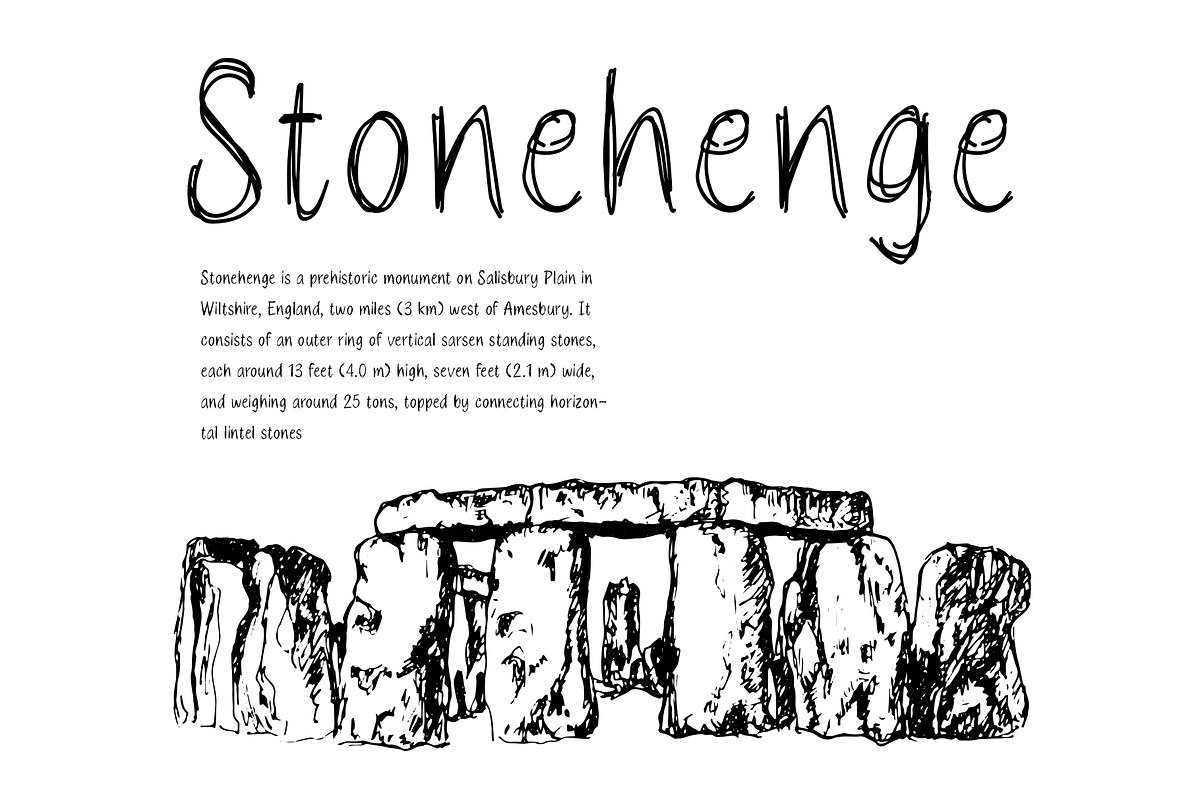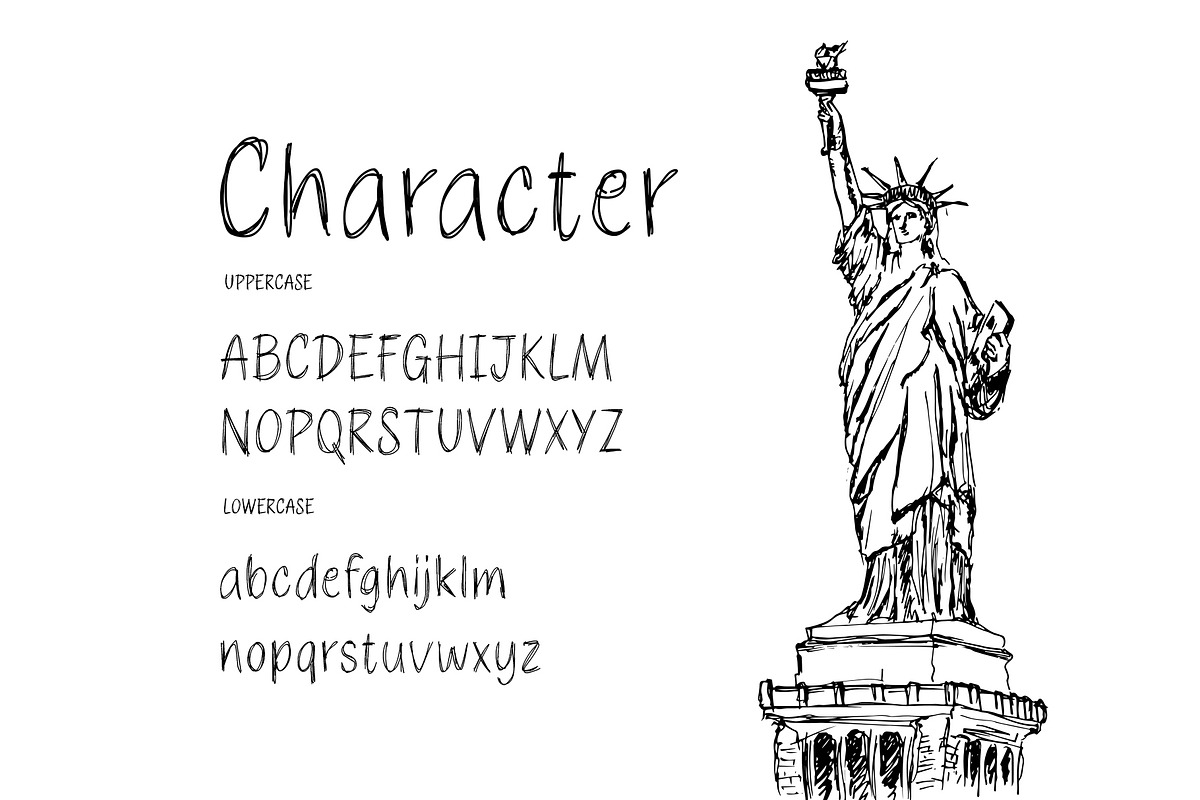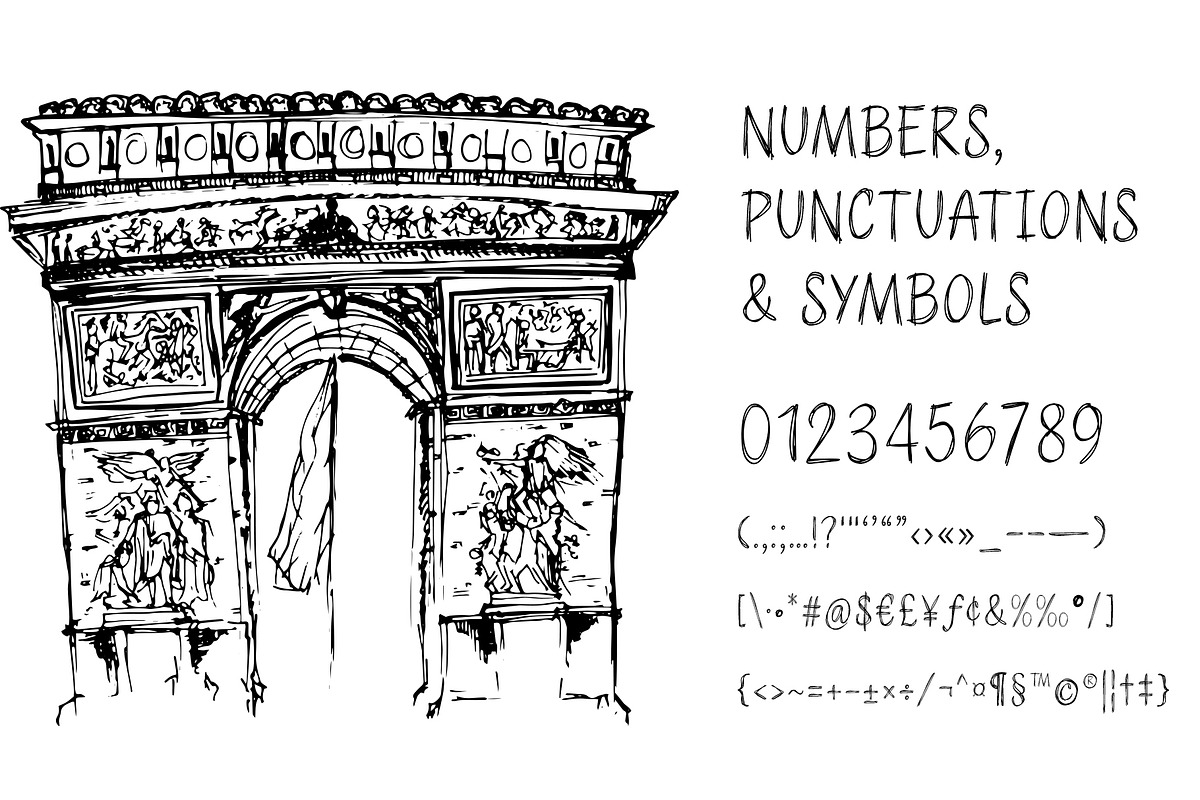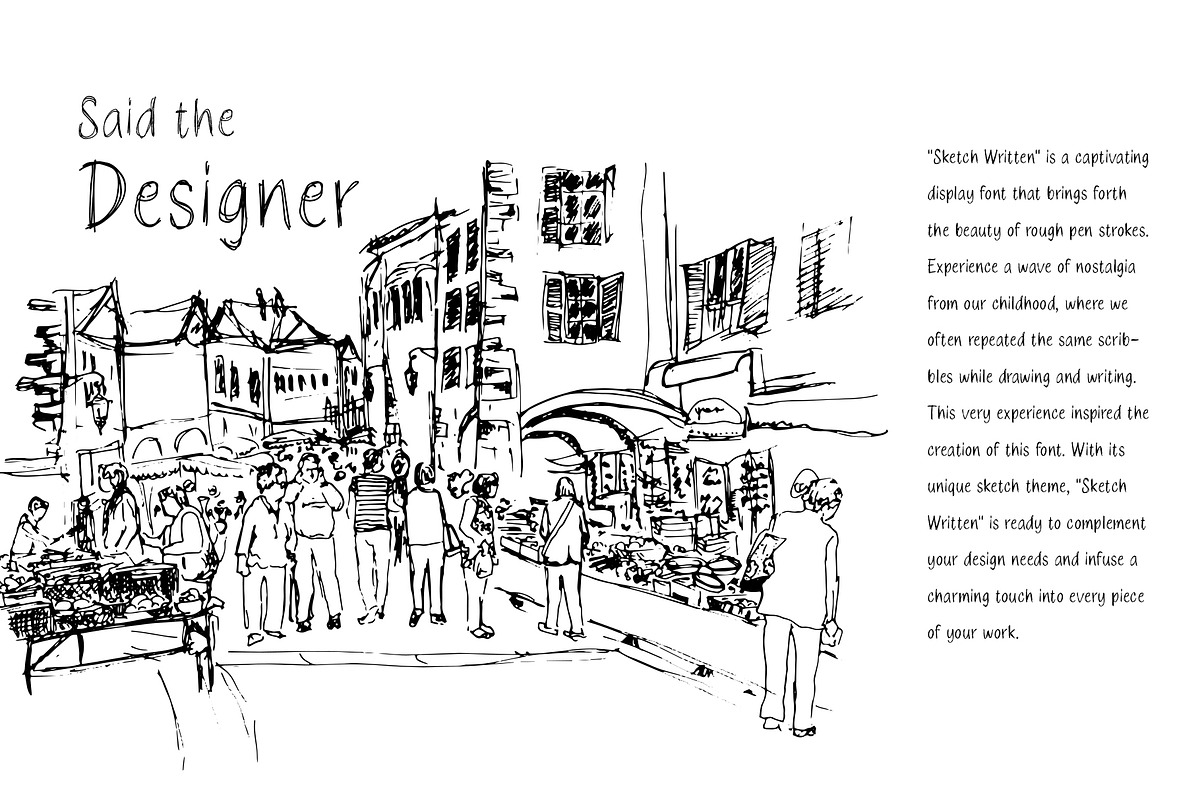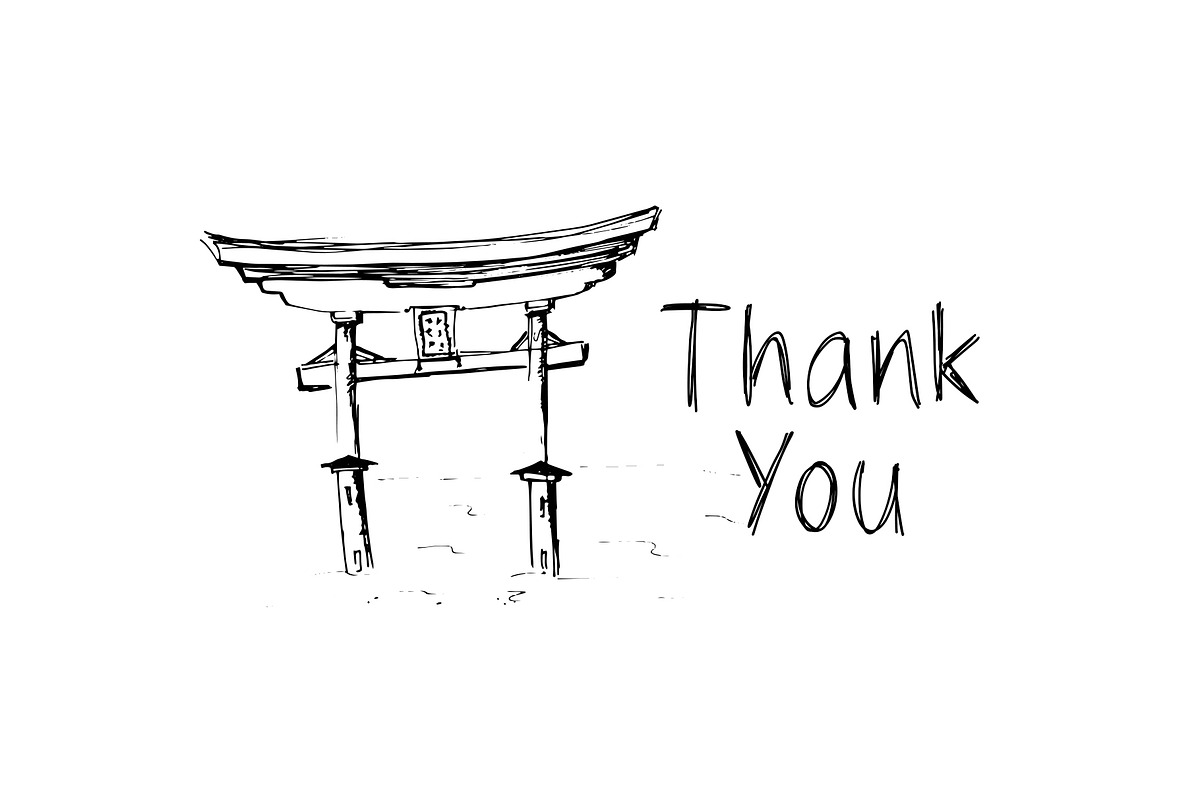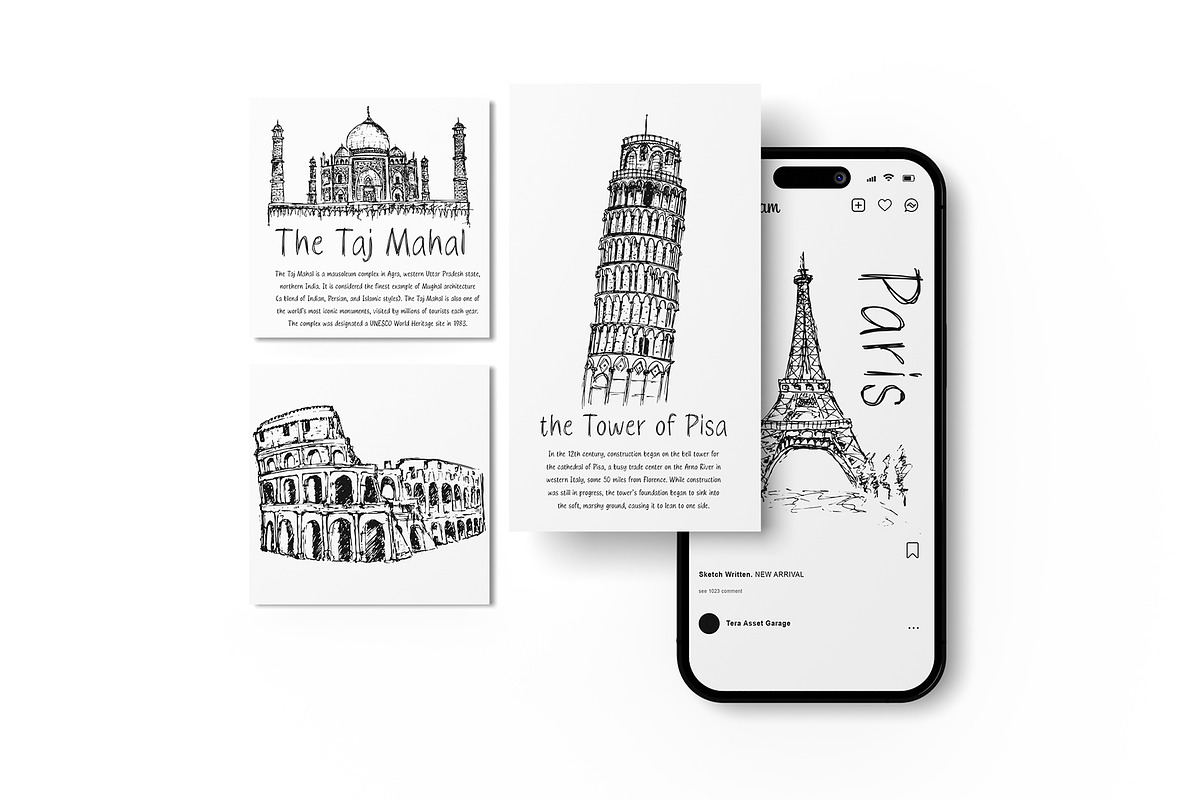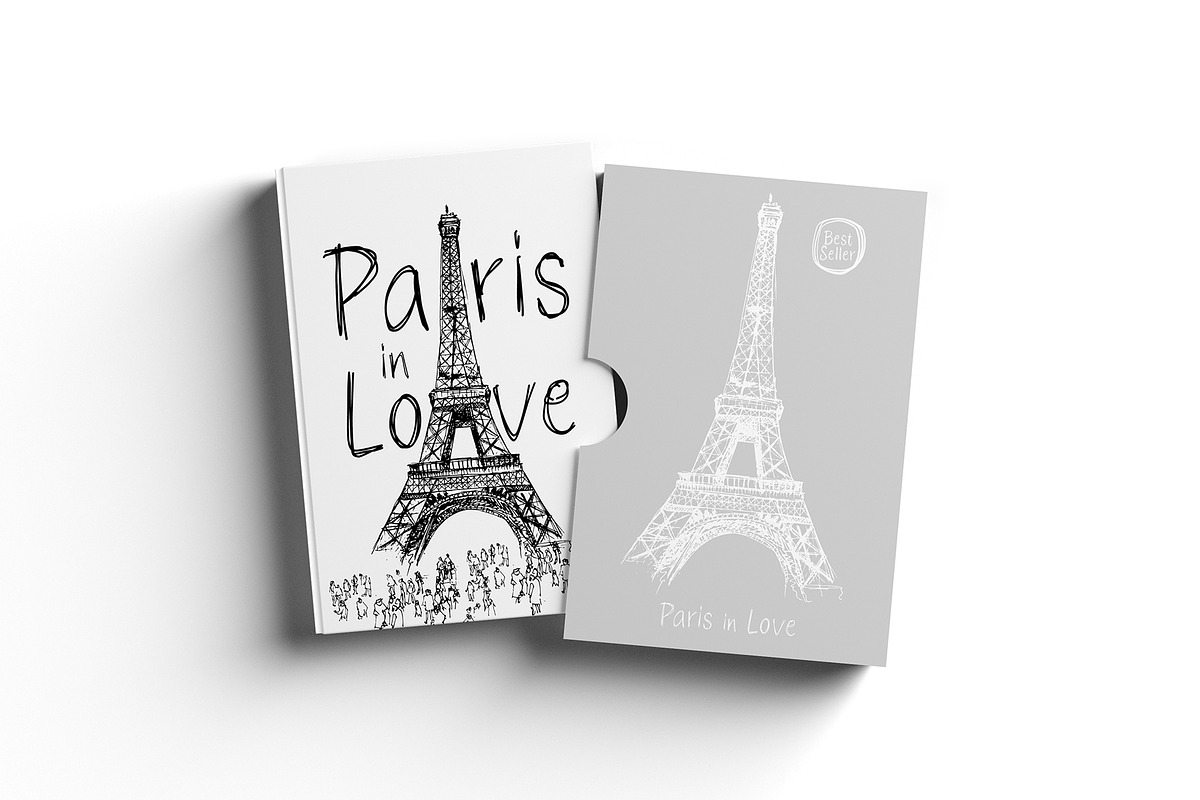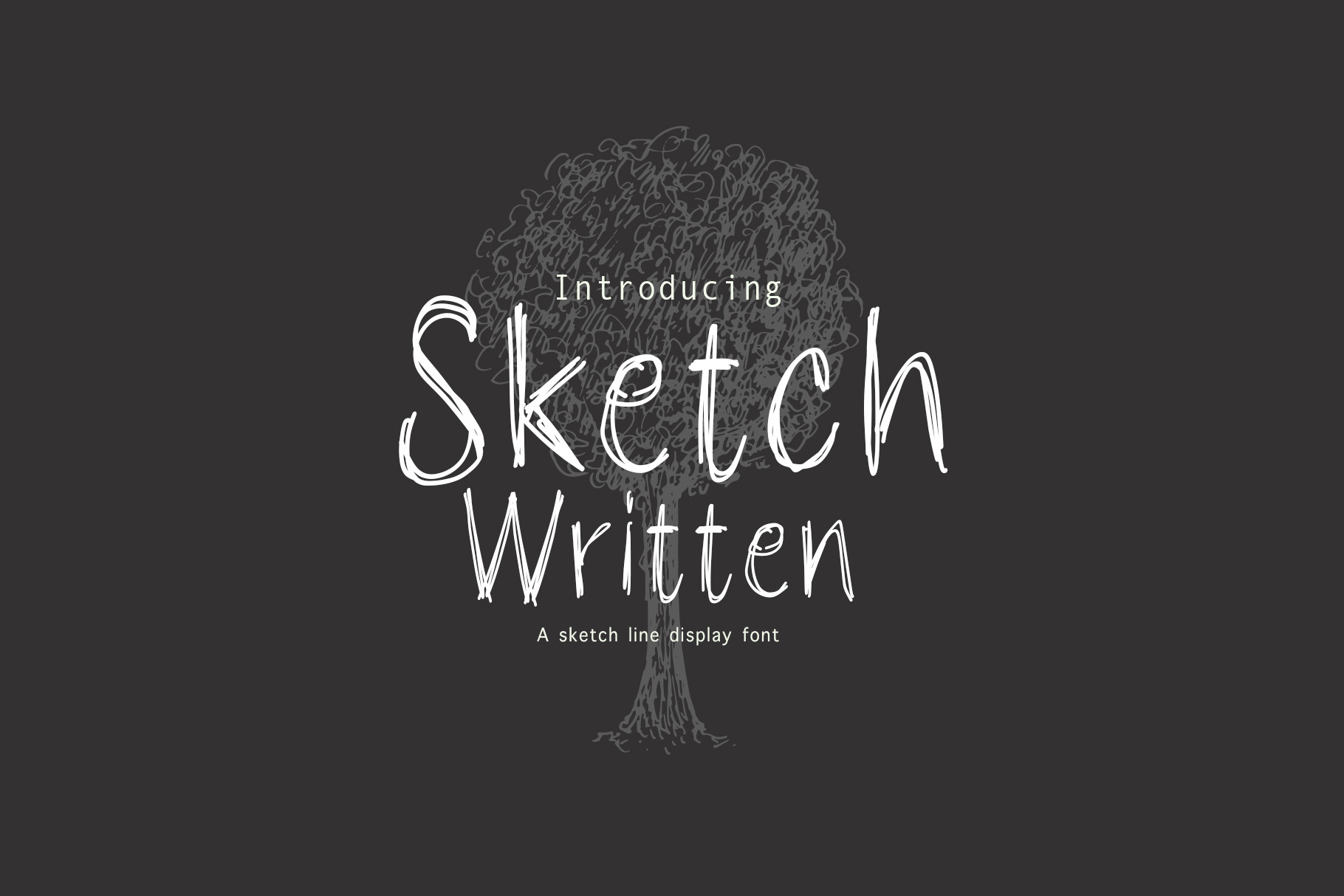
Sketch Written Display Font
Sketch Written is a font that depicts repetitive hand-drawn scribbles. Created to bring an eccentric and creative hand-lettered look, this font creates a unique and personal atmosphere in designs.
The history behind the creation of this font began with our desire to explore the uniqueness of hand-drawn writing. We were inspired by the beauty and creativity that emerges when hand scribbles are repeated. We aimed to create a font that combines an eccentric and repetitive impression in design.
Sketch Written presents each letter and character with a continuously repeated hand-lettered style. Every stroke and detail in this font is chosen to produce a unique and captivating look. The font gives the impression that the writing is formed from a pattern of continuous scribbles, creating an eccentric and attention-grabbing appearance.
The Sketch Written font is highly suitable for various design projects that aim to highlight an eccentric hand-lettered look. You can apply this font to posters, logos, packaging designs, and more, to create a unique and distinctive appearance from other fonts.
So, with the Sketch Written font, you can explore creativity and bring a personal touch to your designs. The font allows you to create designs that showcase repetitive hand-drawn patterns in a unique and eccentric way. Add a repetitive touch to your designs with the Sketch Written font.